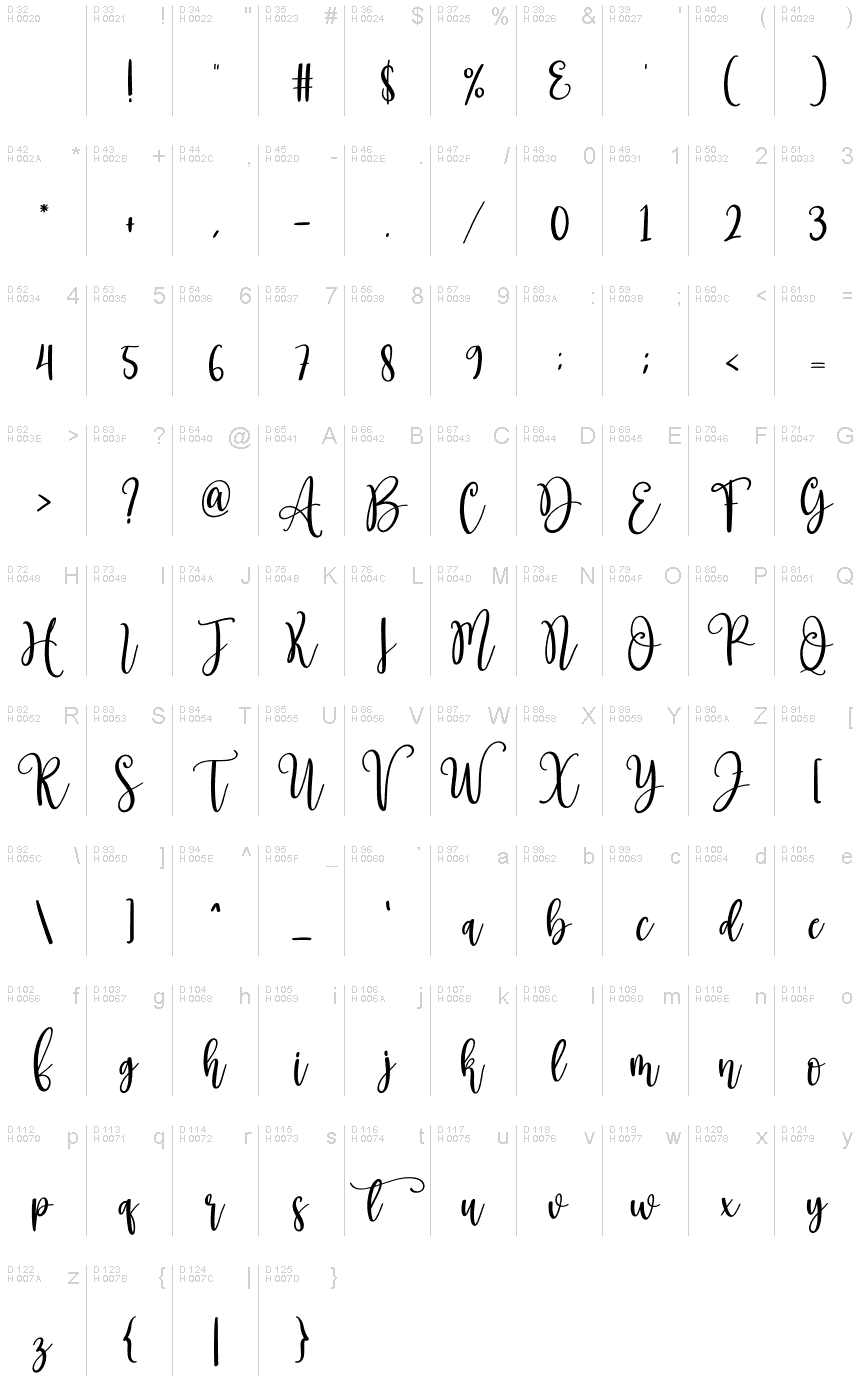
Thanksgiving
The Thanksgiving font by scratchones is a stunning calligraphy typeface that exudes elegance and sophistication. With its semi-light weight and condensed width, this font is perfect for projects that require a delicate touch, such as wedding invitations or high-end brand logos. Its graceful flourishes and sweeping strokes make it ideal for use in printed materials. Whether you're looking to add a touch of luxury to your website or create beautifully crafted print materials, the Thanksgiving font is the perfect choice for any project where style and refinement are key.
the latest style letters are perfect for wall displays, wedding invitations, social media post logos, advertisements, product packaging, product designs, labels, photography, watermarks, invitations, stationery, and any project that requires taste handwriting.